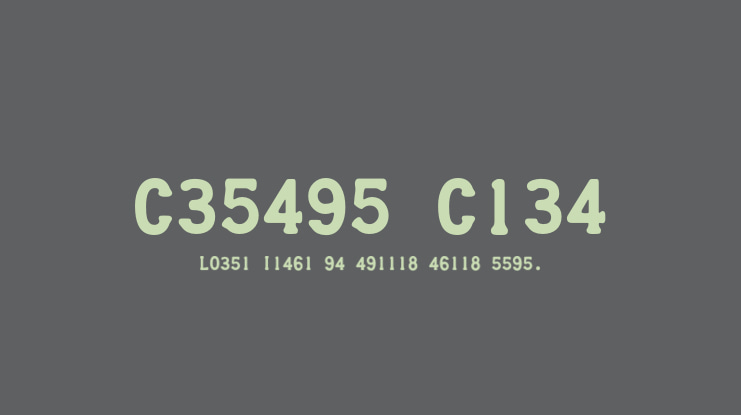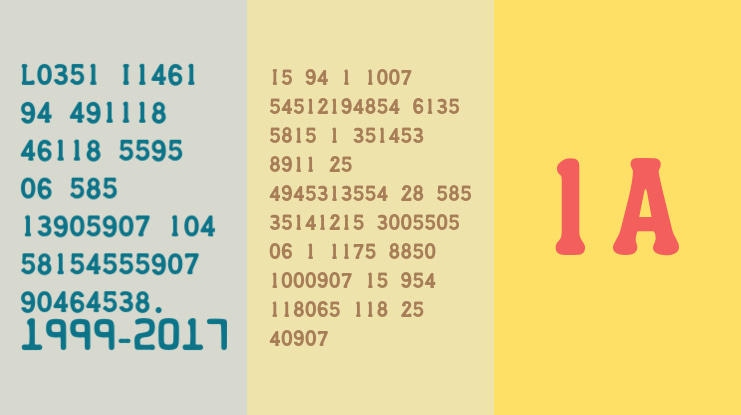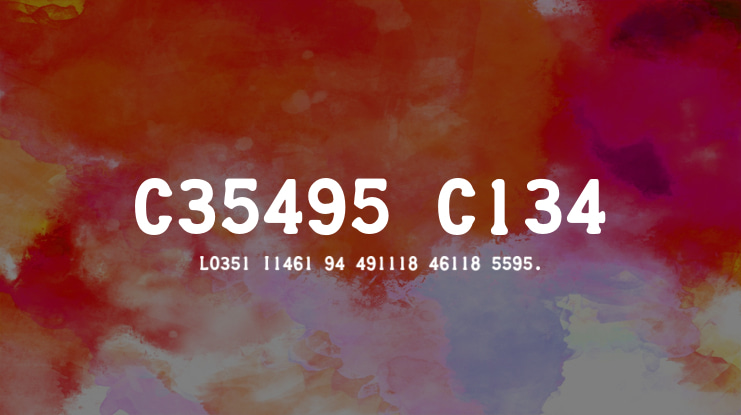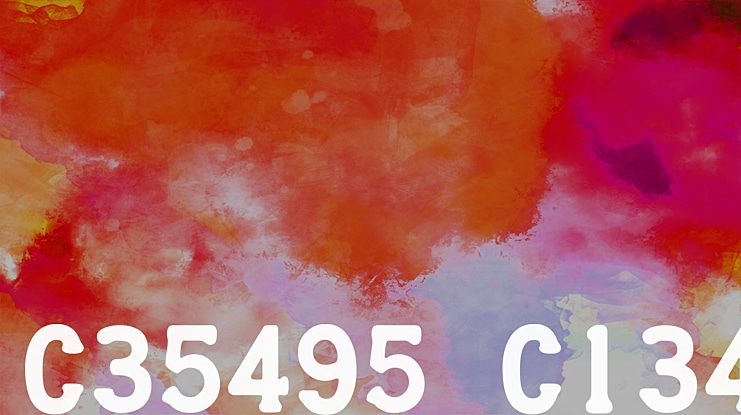
Credit Card Font
Credit Card is an ALL CAPITALS font for simulating bank cards (and to suggest a context of banking, finance, membership or security). The number keys produce the bigger, squarer digits of the 16 figure card number. There is no lowercase in this font. Instead, the small numerals used for validity dates fill the lowercase letter keys, 1 > 9 being at a > i. In deference to their functional origins, most characters are monospaced and devoid of pair kerning. Also, many of the accented capital letters are reduced in vertical size to help accommodate the diacritic.A commercial license can be purchased at www.k-type.com/fonts/credit-card/ (http://www.k-type.com/fonts/credit-card/)